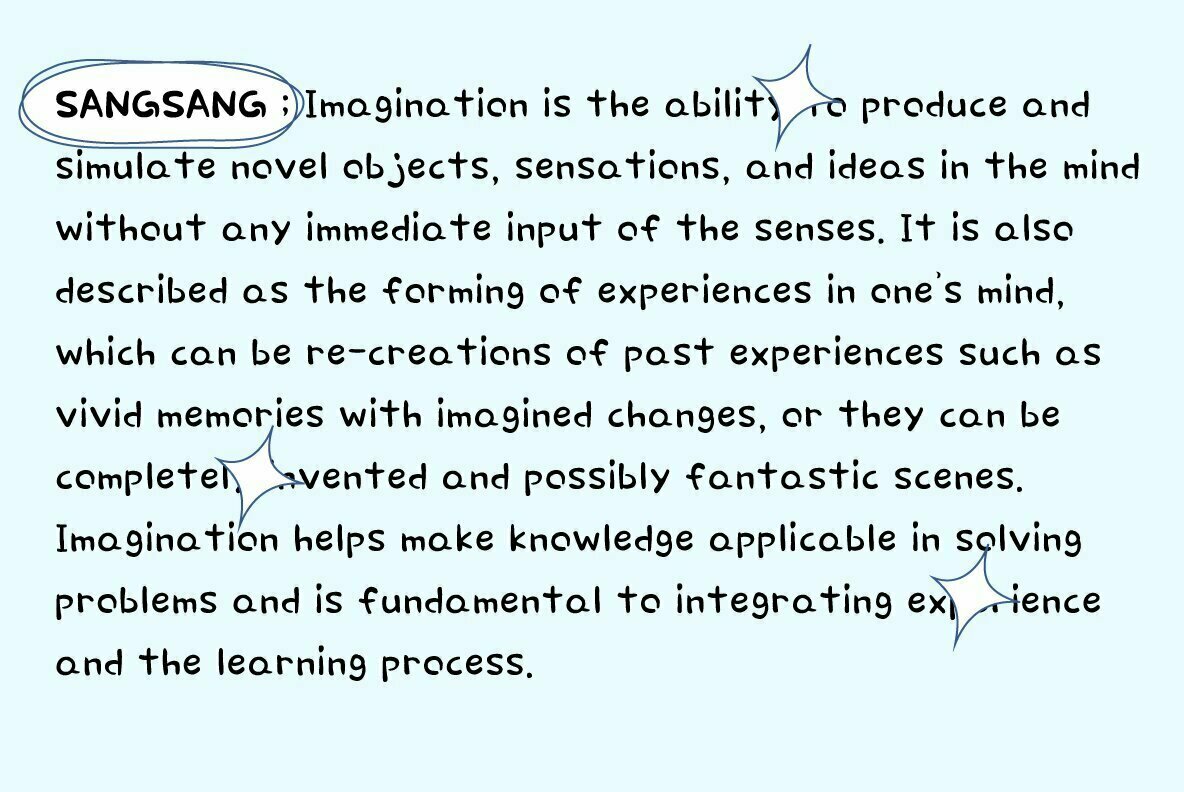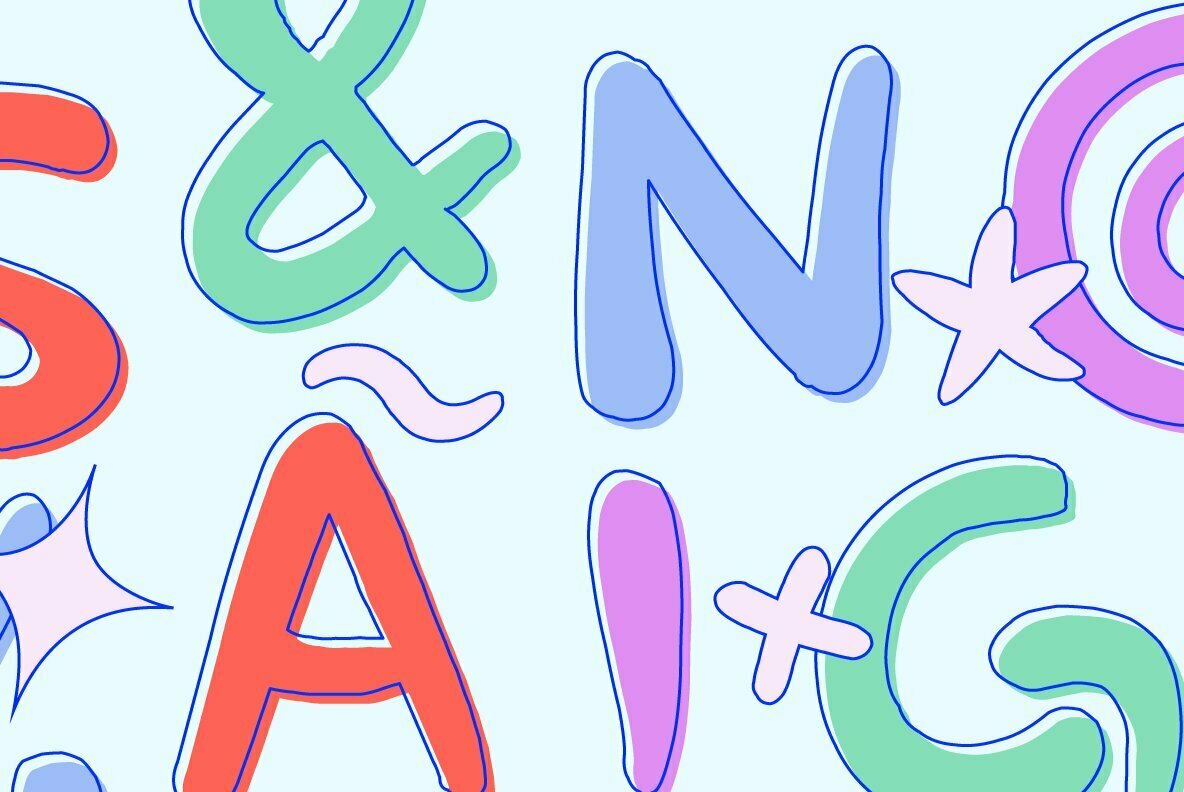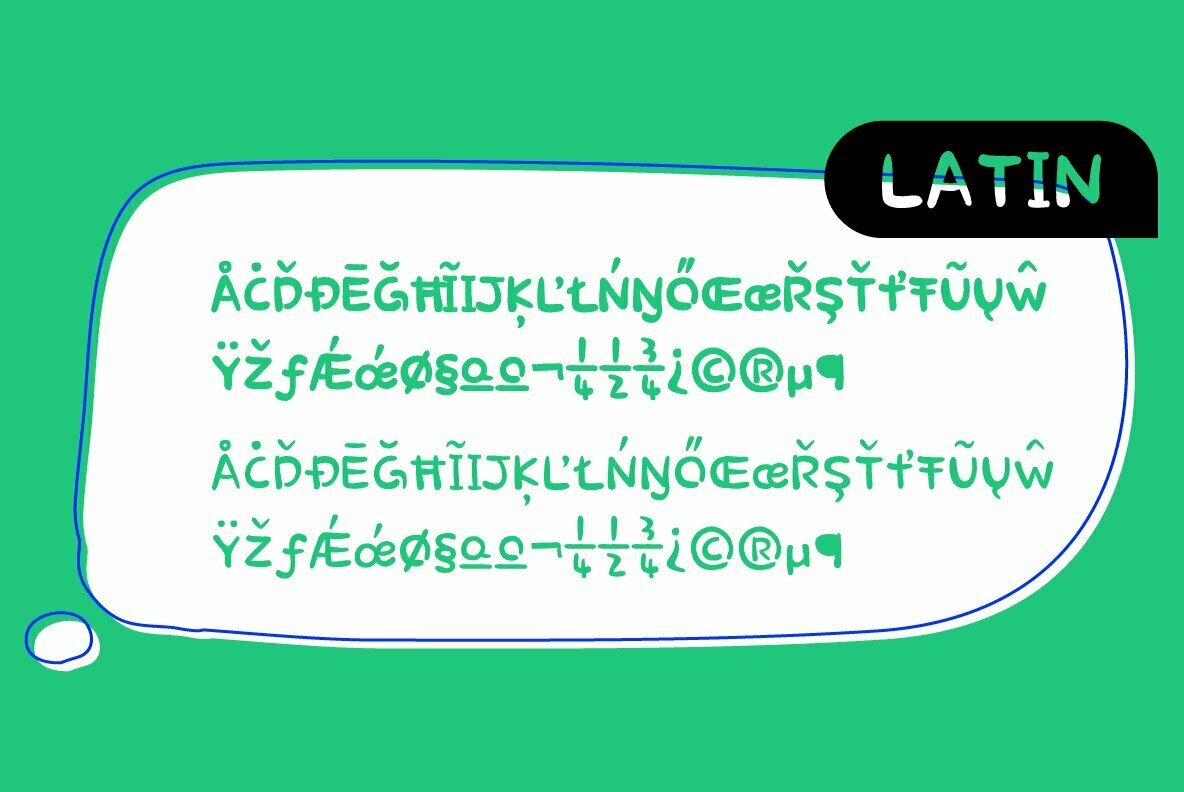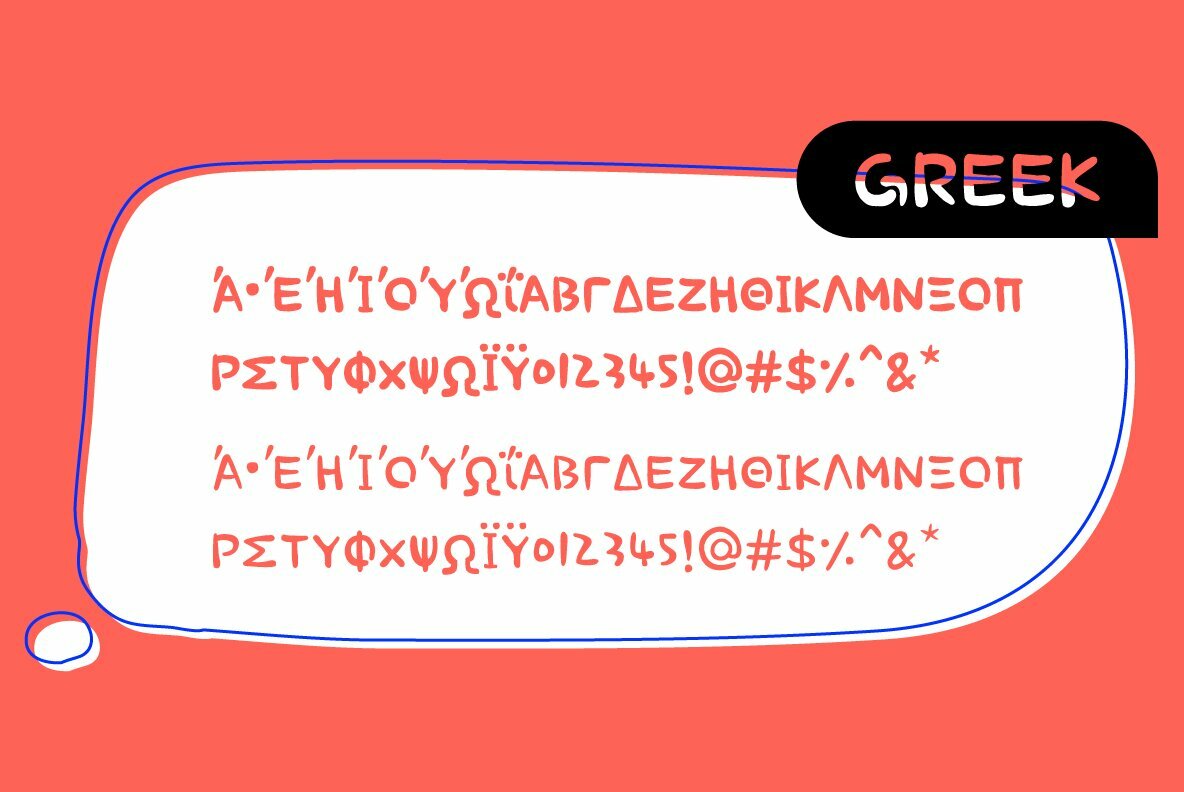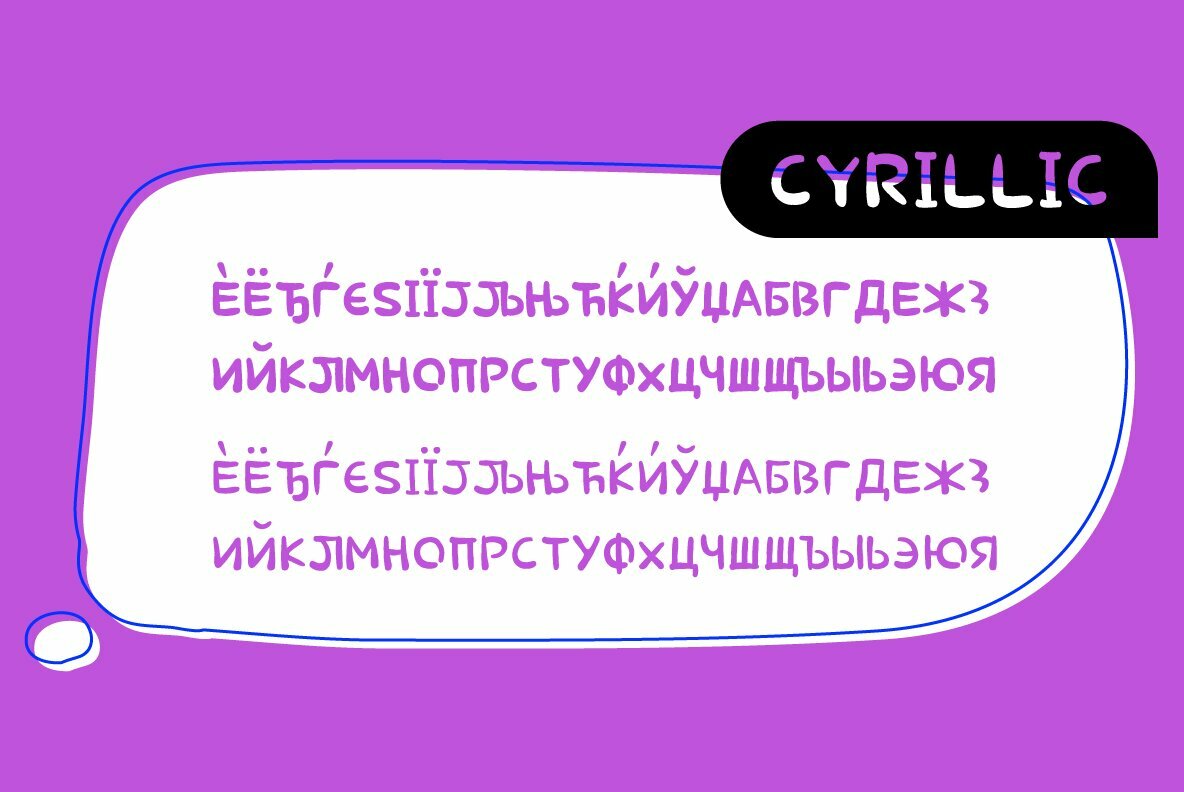
HU Sangsang Font
HU Sangsang is a cute typeface with a fancy feeling characterized by differences in text thickness.
There are 2 weights of HU Sangsang : Bold, Semi Bold.